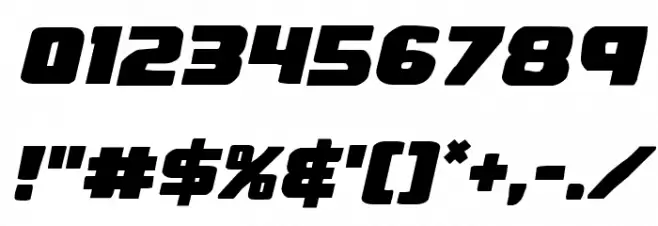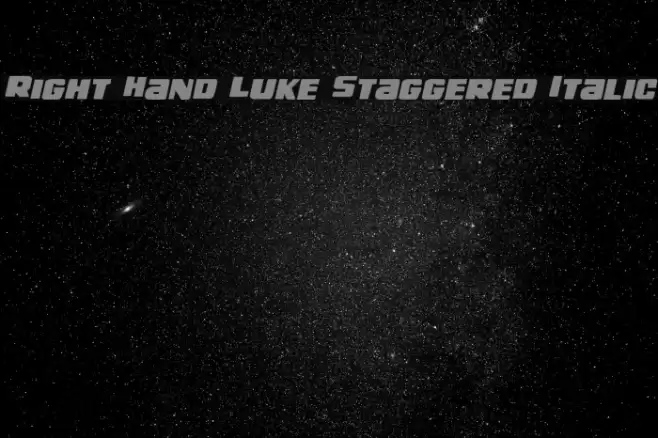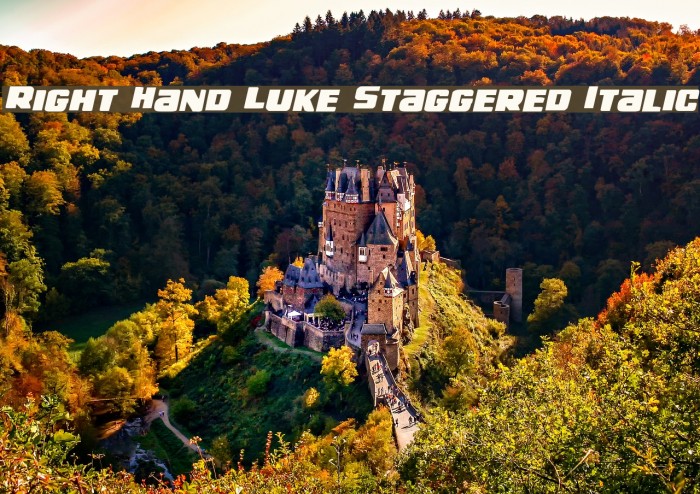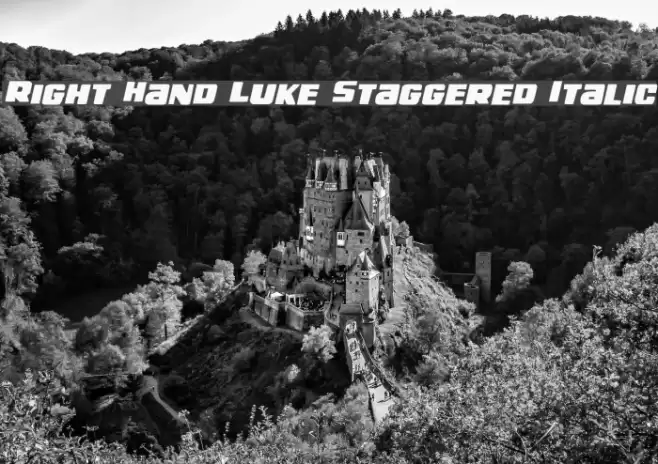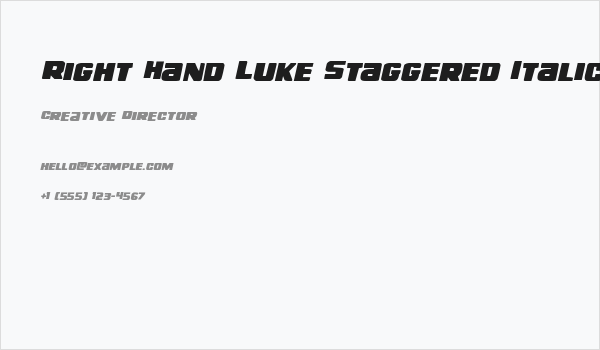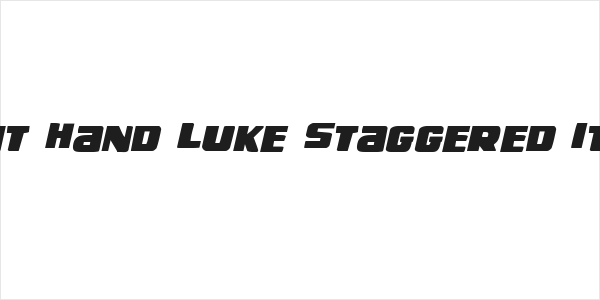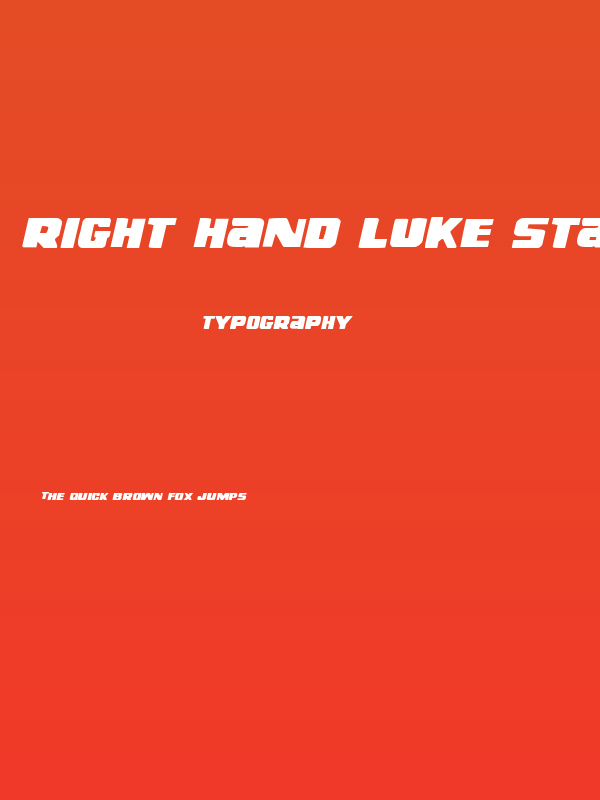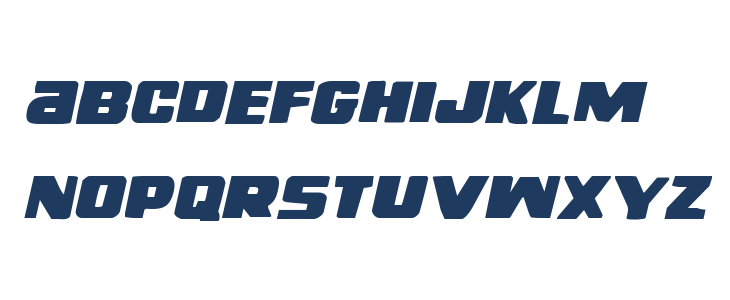
Right Hand Luke Staggered Italic Font
Right Hand Luke Staggered Italic Description
This bold, italicized font features a staggered, dynamic style with strong geometric elements. The characters are slightly slanted, giving a sense of motion and energy. The uppercase and lowercase letters maintain a consistent weight, with wide, blocky shapes that convey strength and impact. The numbers and special characters follow the same bold, italicized design, ensuring uniformity across all elements. The font's thick strokes and minimal contrast make it highly legible, even at smaller sizes. Its modern, assertive appearance makes it suitable for attention-grabbing designs.